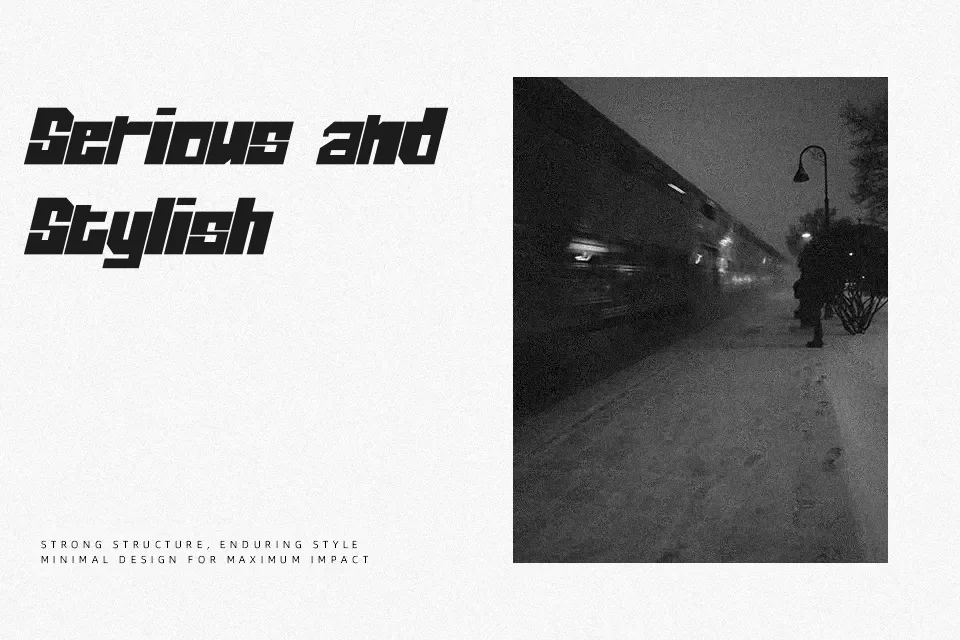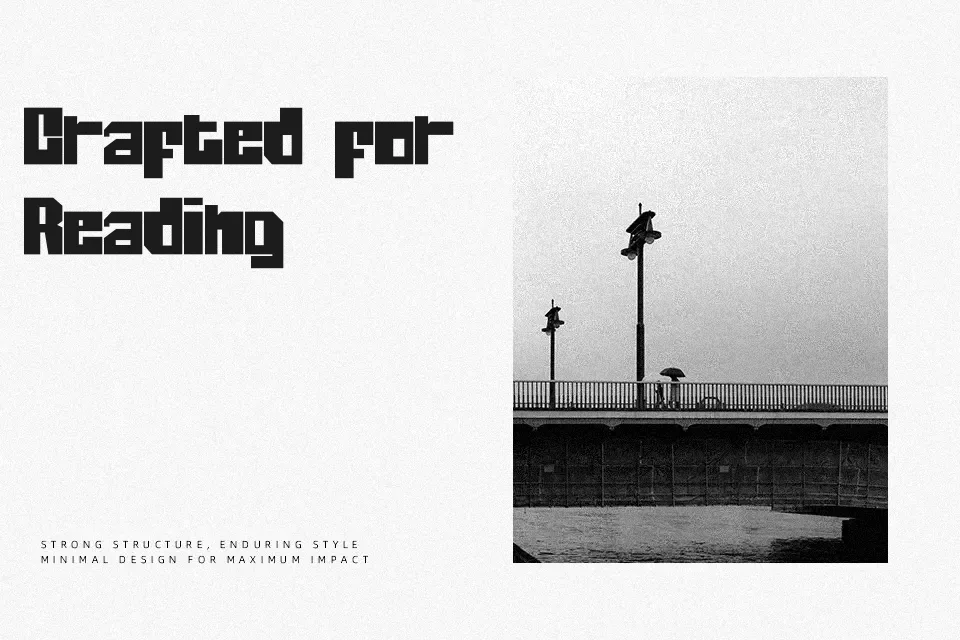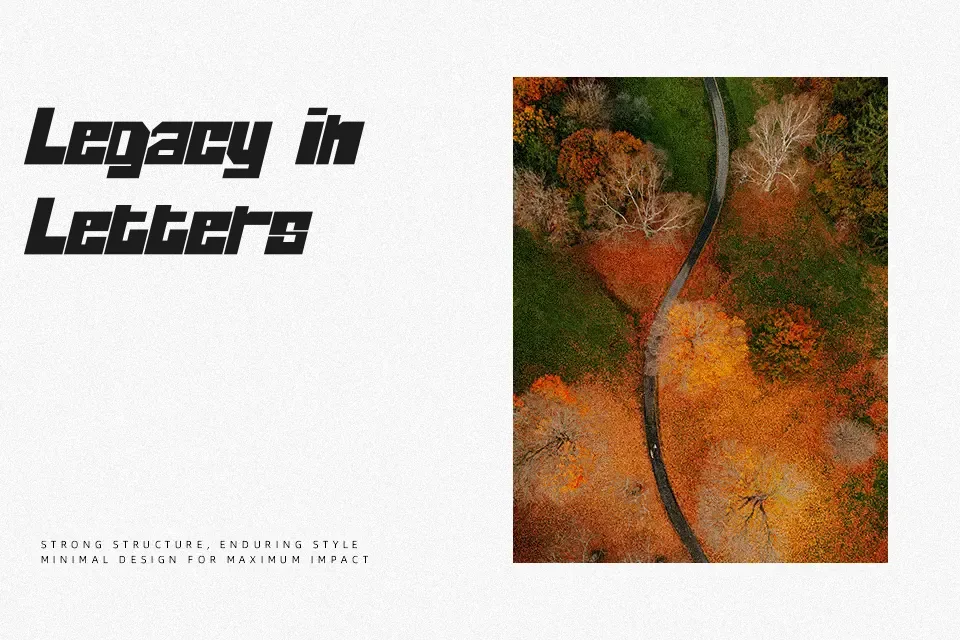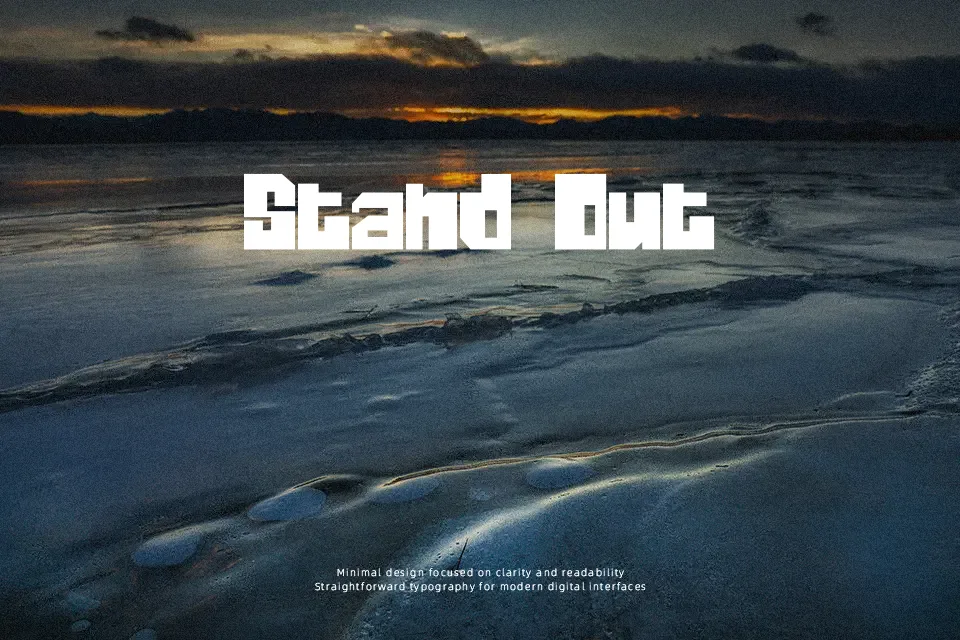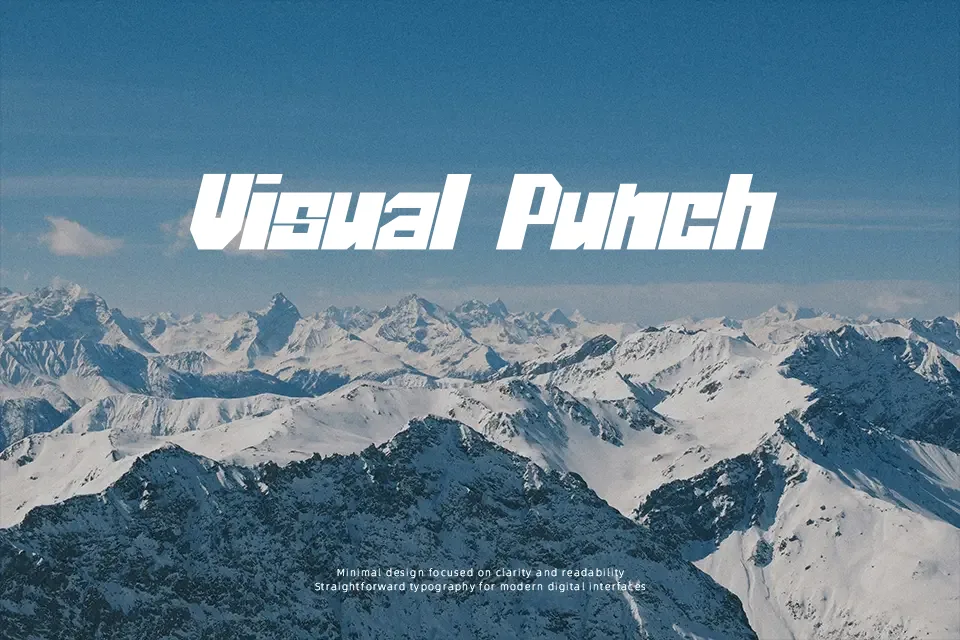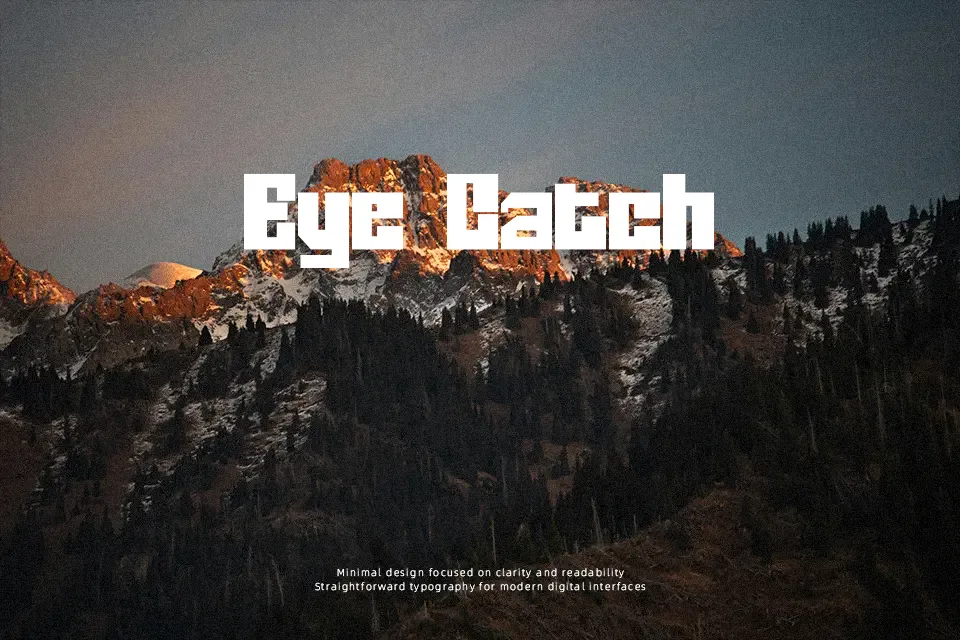
Thifloss Font
Thifloss Font maintains sharp character definition primarily when deployed at prominent display scales. Built with ultra-thick strokes, uniform widths, and tightly grouped letterforms, the typeface produces an assertive rhythm ideal for streetwear branding, record jackets, and energetic event flyers. The letterforms carry exaggerated geometry with tight internal counters, giving the overall design a robust presence in short promotional titles. However, the condensed spacing and heavy mass become overwhelming in extended reading environments, making the font unsuitable for running text or compact interface captions. In practice, the design functions most effectively as an accent headline element where maximum visual impact outweighs text density.
streetwear apparel graphics, retro music festival posters, craft beverage packaging, arcade event banners
long paragraph text, small interface labels, mobile app body copy, legal documents
Perfect for advertising, headline, and logo, with a bold and decorative style.